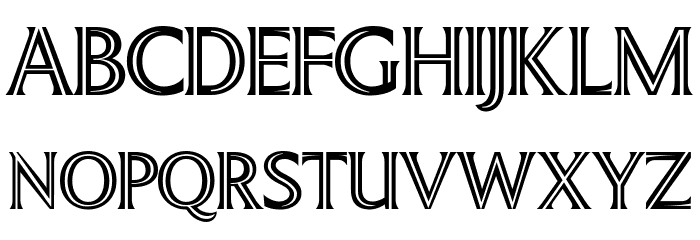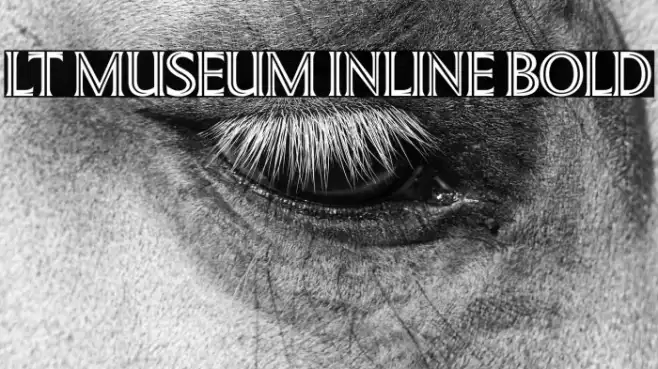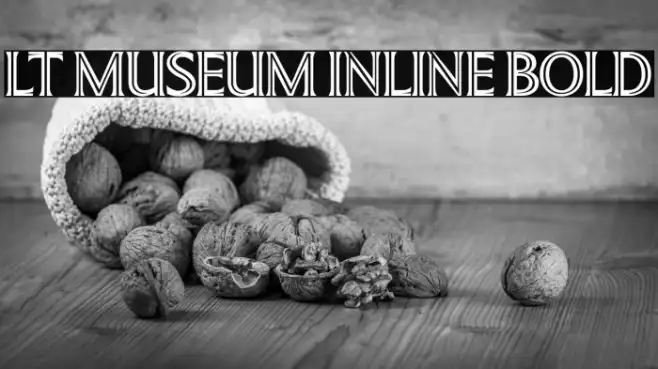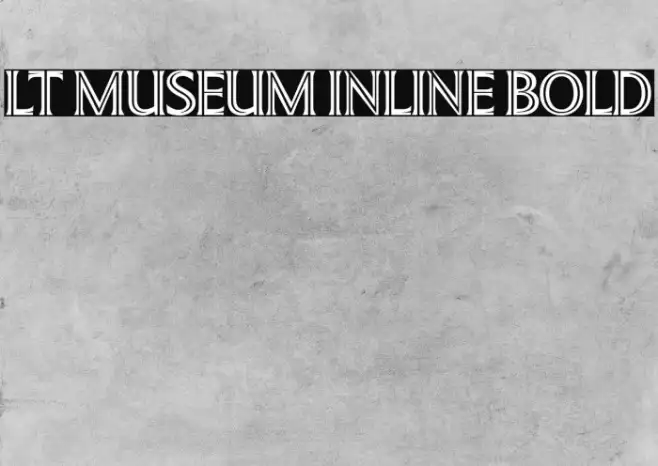
LT Museum Inline Bold Font
This font features a bold and striking design with an inline style that adds depth and dimension to each character. The uppercase letters are crafted with precision, showcasing a blend of classic and modern elements. The inline detail creates a unique visual effect, making the font stand out in any design. The characters are well-balanced, with a consistent stroke width that enhances readability while maintaining an artistic flair. This font is ideal for projects that require a touch of elegance and sophistication, such as branding, headlines, and editorial design.
A bold, inline font with a blend of classic and modern elements.
- Proposed Projects: Ideal for branding, headlines, editorial design, and any project needing a sophisticated touch.
- Use Case: Headlines, Logos, Branding